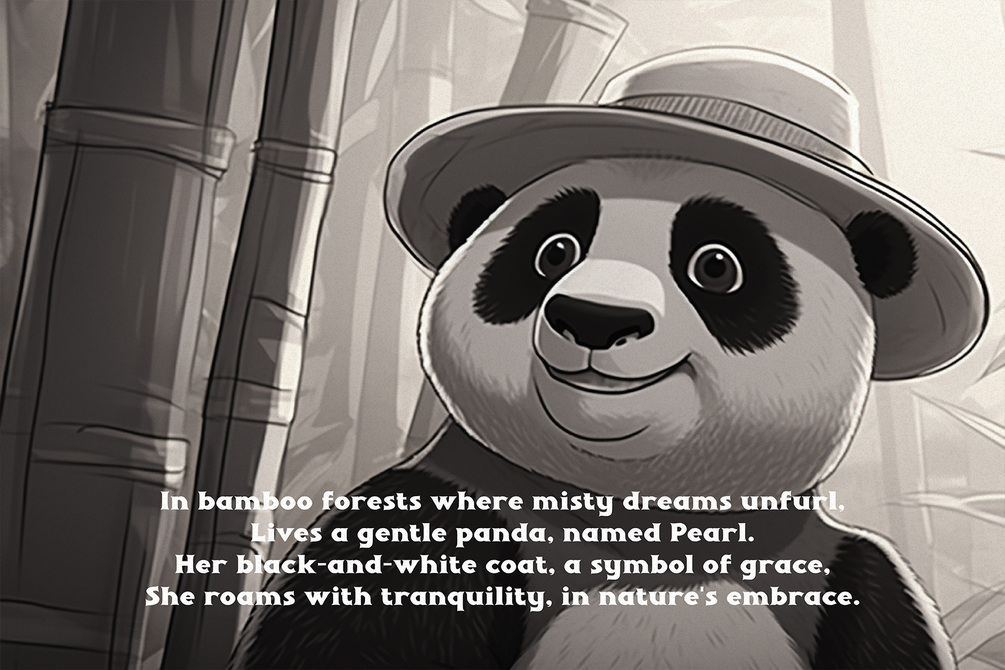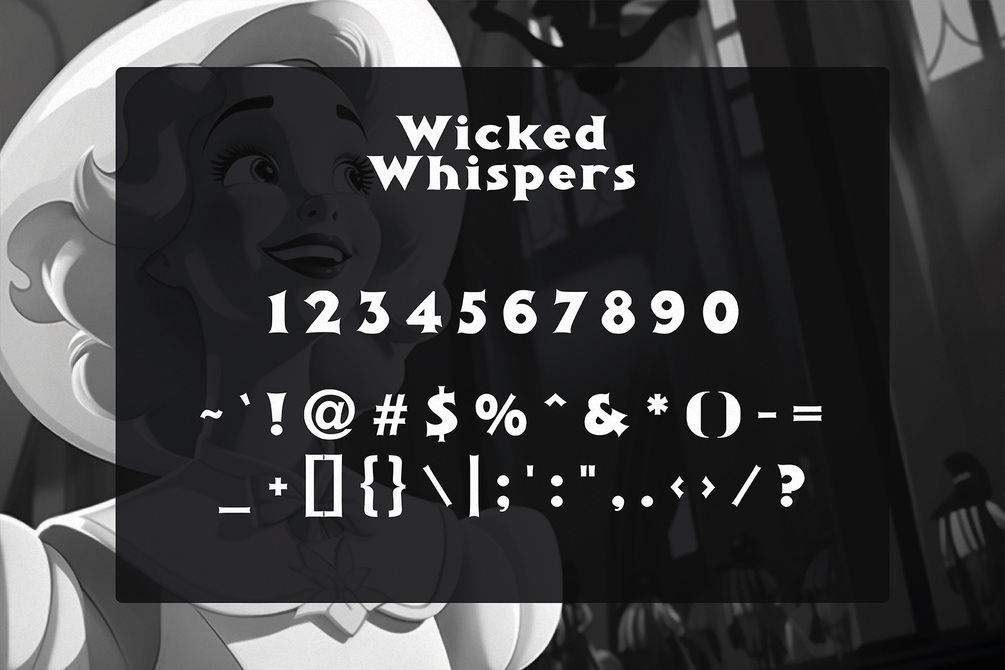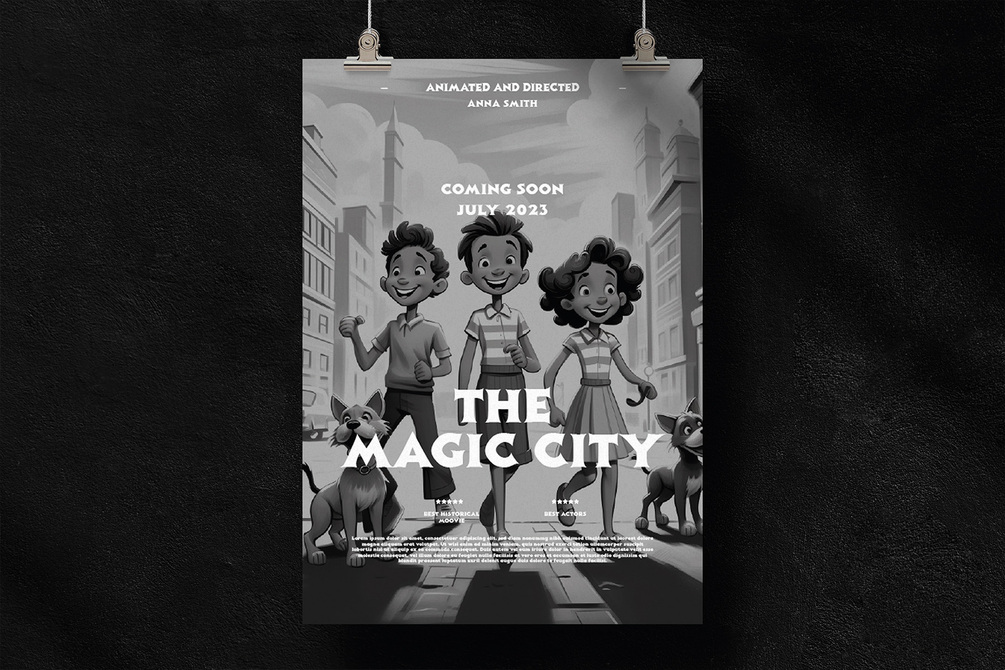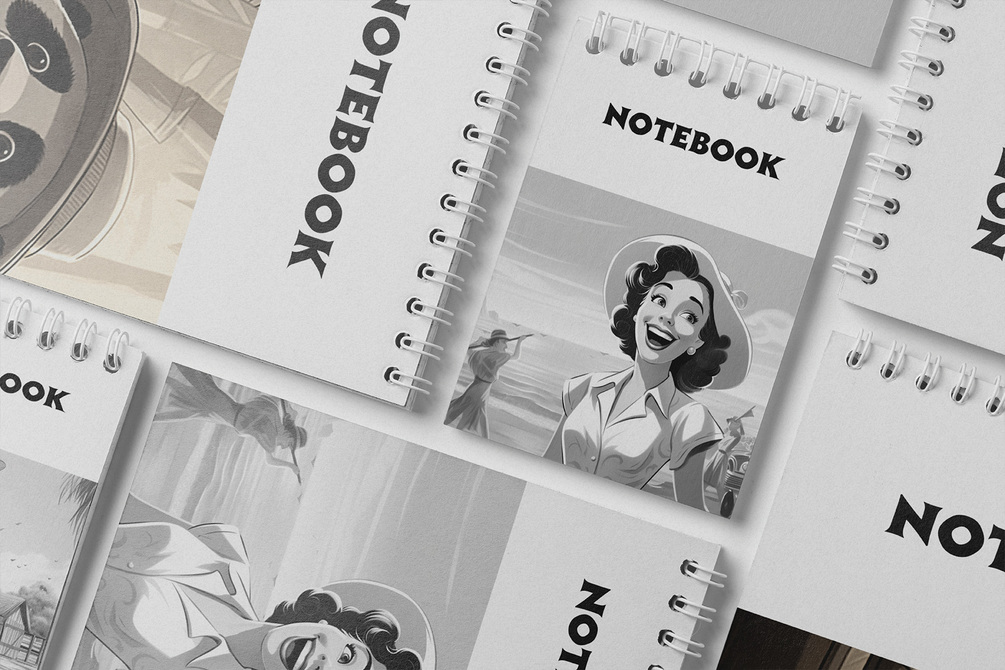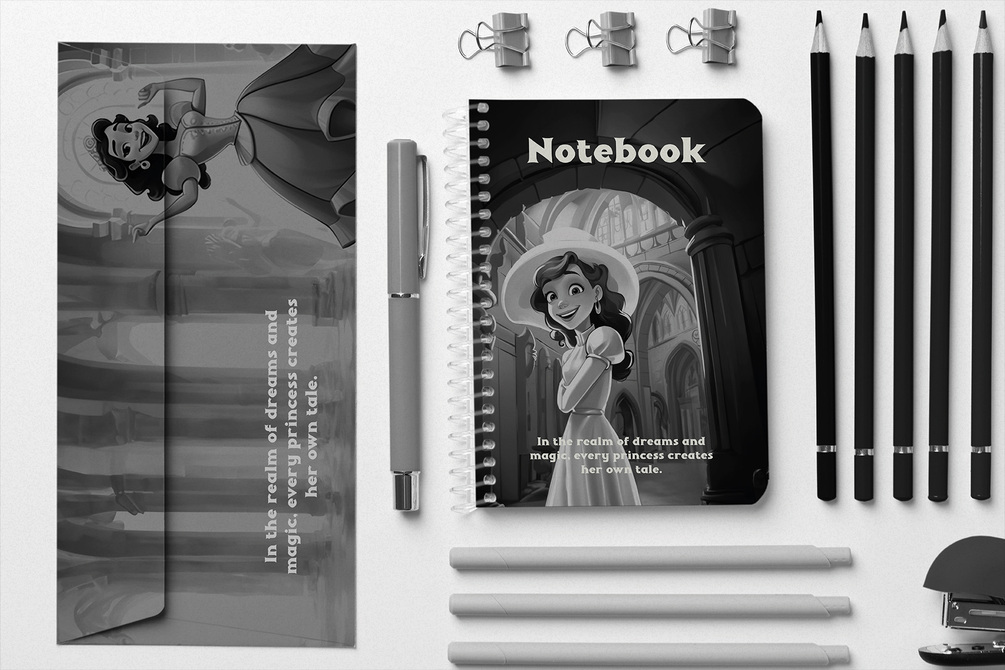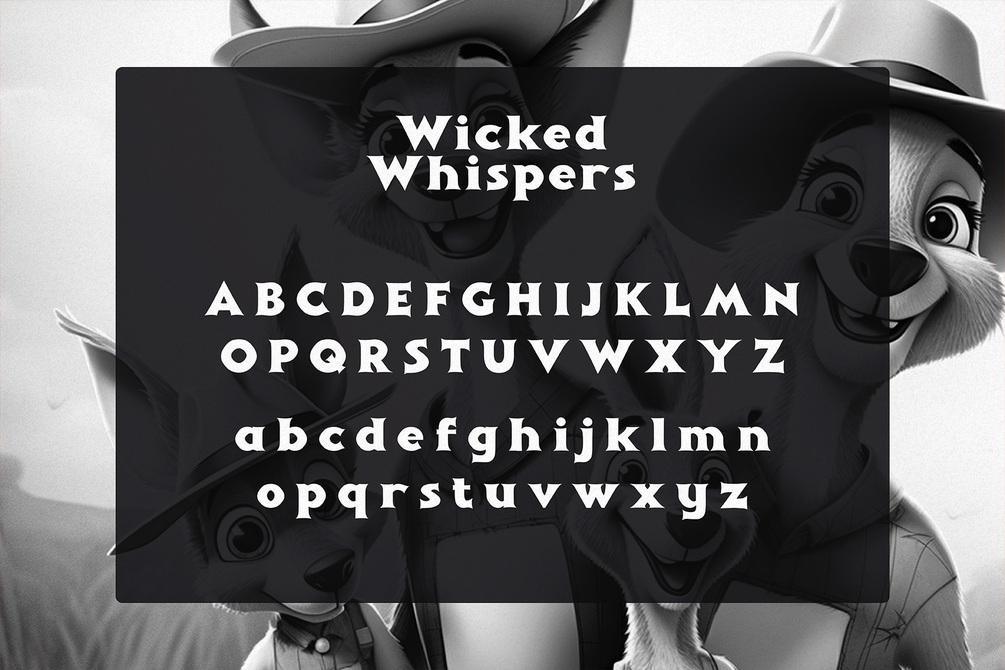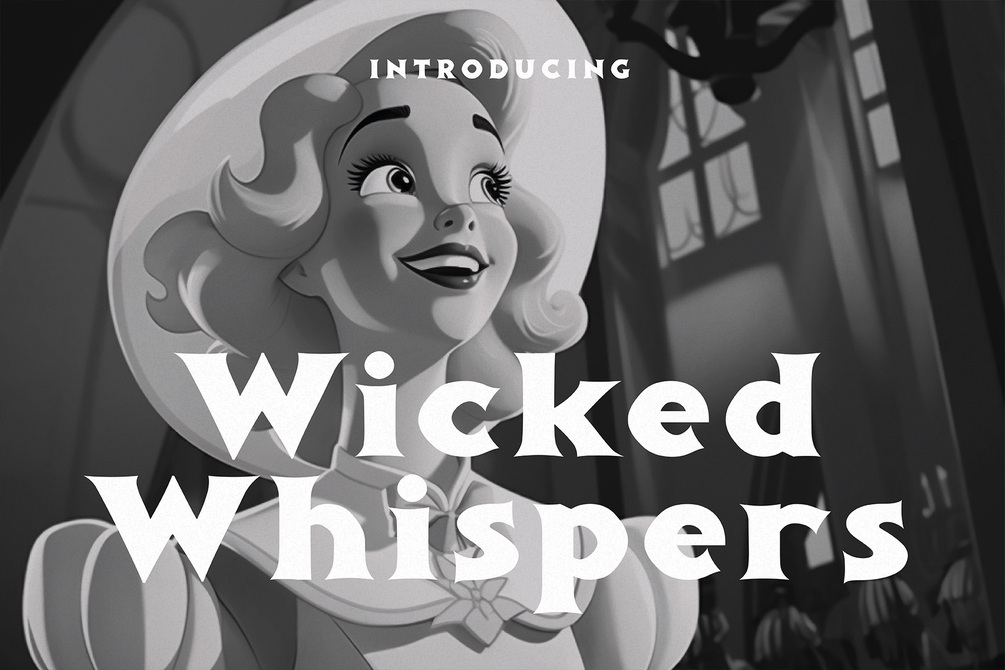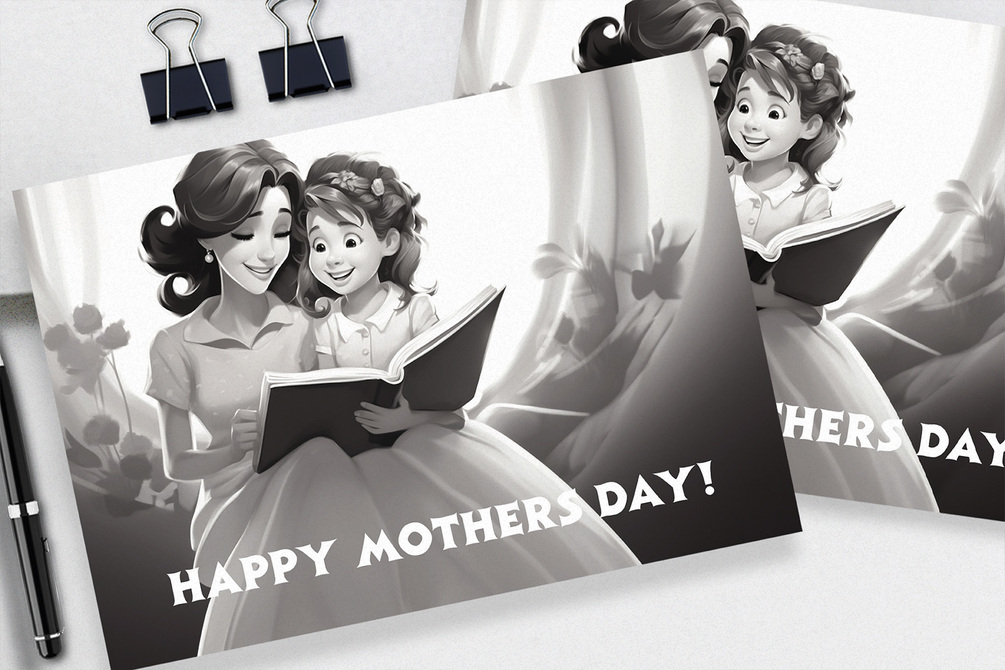
Whicked Whispers - 1930s Typeface
Introducing Whicked Whispers, a captivating vintage font that pays homage to the enchanting world of early black and white cartoons from the 1930s. This whimsical typeface captures the essence of that era's playful nostalgia, bringing to life the era of mischievous characters and timeless tales. Every carefully crafted letter is infused with the quirky charm of inked illustrations, exuding an aura of forgotten tales whispered from a bygone era.
With its distinct and handcrafted appearance, Whicked Whispers transforms any project into a portal to the past, evoking the wistful ambiance of yesteryears while remaining relevant for modern design endeavors. Whether used for headlines, logos, or artistic endeavors, this font radiates a delightful charisma that harks back to the golden age of animated storytelling.